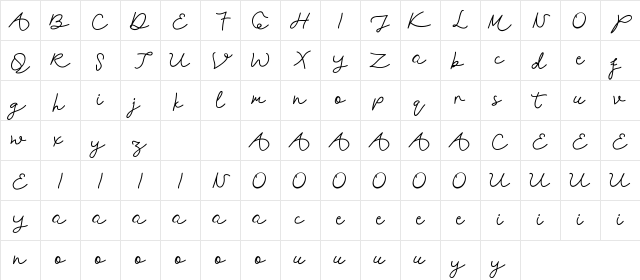
Complete Breezy Bolton DEMO Regular glyph index. Displaying only characters natively supported by Breezy Bolton DEMO Regular font.
Breezy Bolton DEMO is a composed and adaptable typeface that performs quietly and consistently across a wide range of design contexts.